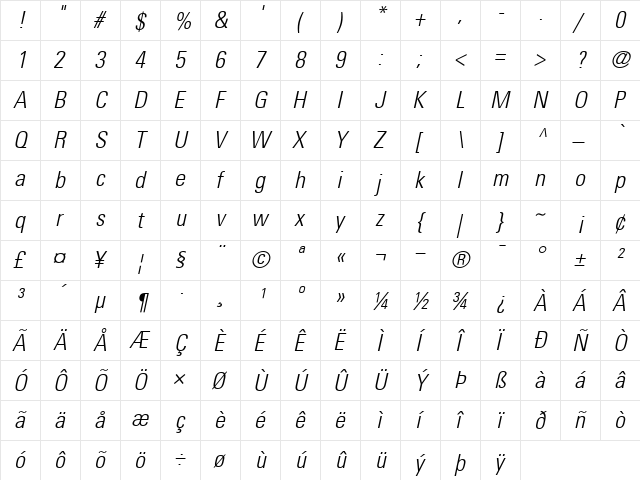
Univers47-CondensedLight LightItalic Font Preview
Design Context for Univers47-CondensedLight Typeface
Univers47-CondensedLight offers clean, dependable letterforms without strong stylistic allegiance, making it a practical choice for designers who need flexibility. The slanted form adds forward momentum and visual energy. Its slender proportions lend an understated elegance to any composition. The condensed width makes it efficient for tight spaces without sacrificing legibility.
Pro Tip: Use Univers47-CondensedLight for emphasis, pull quotes, and subheadings where its slanted energy can add rhythm to the layout.